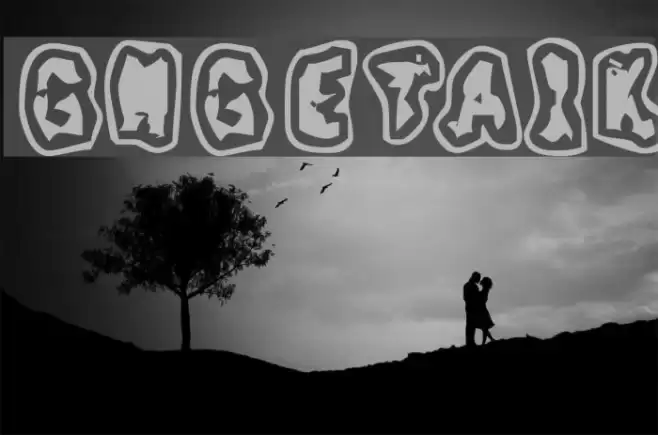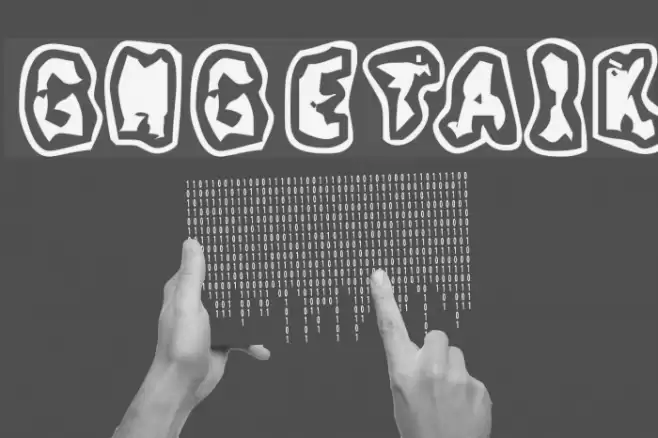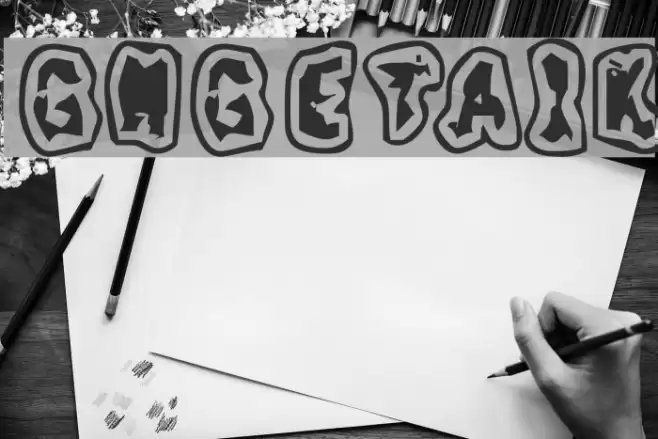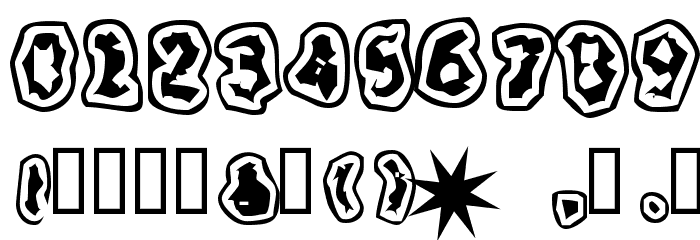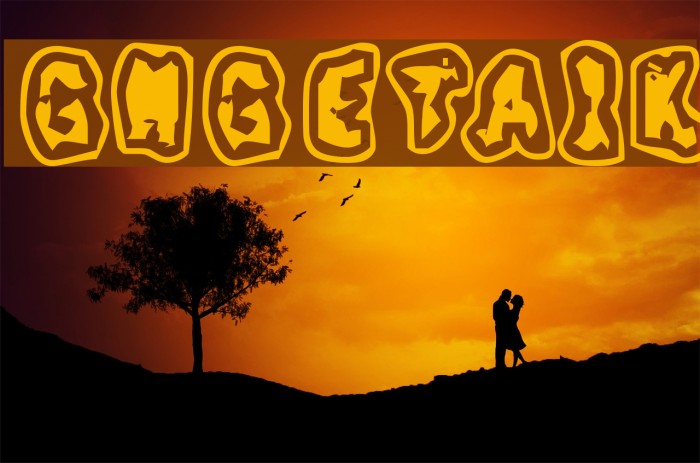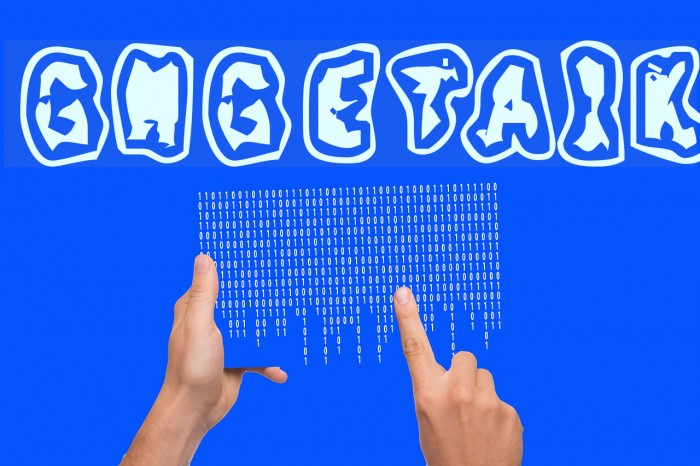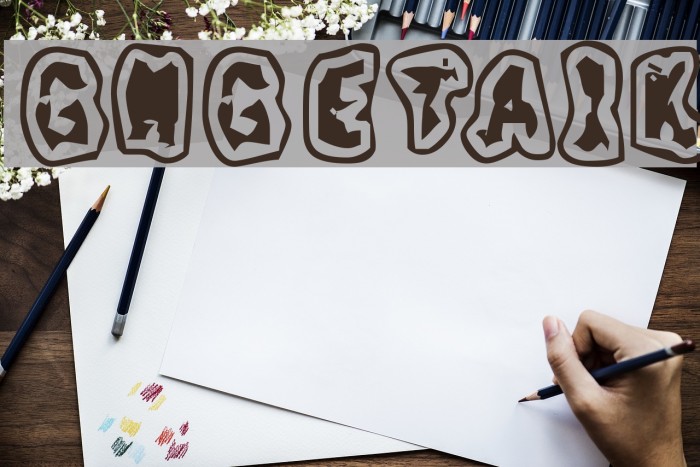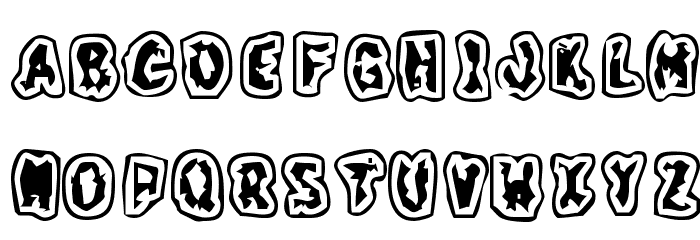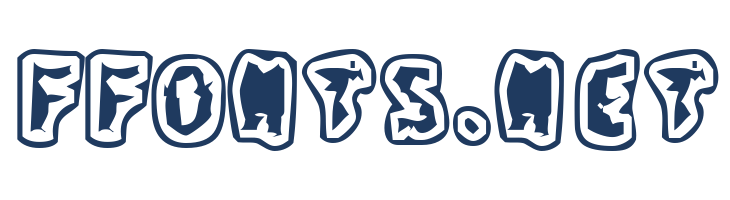
GrungeTastik Font
GrungeTastik Description
This font features a bold, grunge-inspired style with a distressed appearance. Each character is outlined, giving it a rugged and edgy look. The letters are irregular and jagged, adding to the chaotic and raw aesthetic. This font is highly decorative and stands out with its unique, artistic flair. The numbers and special characters follow the same design, maintaining consistency throughout. The overall appearance is striking and unconventional, making it perfect for projects that require a bold statement.
A bold, grunge-inspired font with a distressed and edgy appearance from Outline fonts.
- Proposed Projects: Ideal for music album covers, posters, graffiti art, and any project needing a bold, rebellious touch.
- Overall Style: Grunge, Decorative